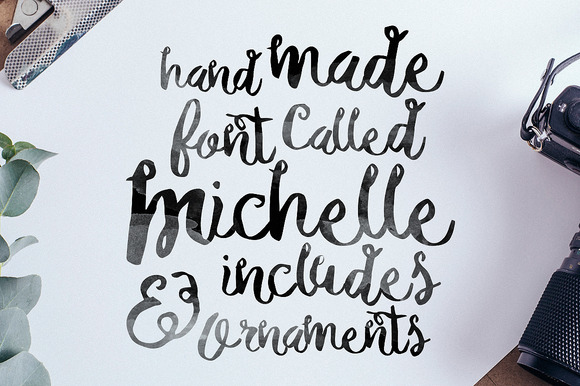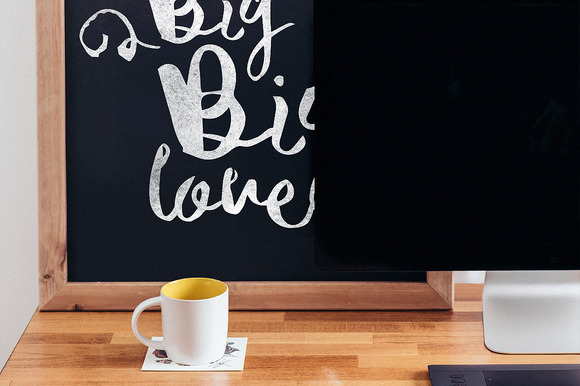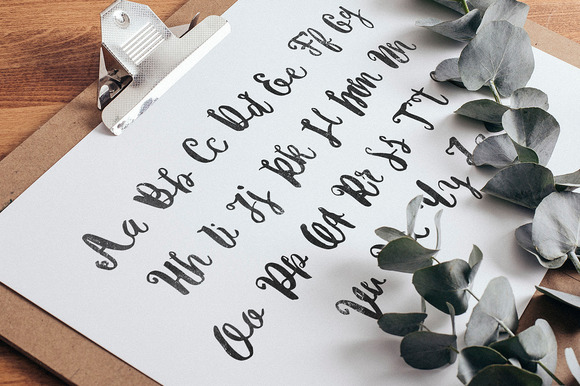
Michelle Font + Bonus by Noe Araujo
Michelle, inspired by the free style hand made font. I made this great font just for you who is looking for something natural, script for your logotype or maybe for a wedding card or some headlines for your website. This great font its just perfect for that!.
Uppercase
Lowercase
Symbols
Numerals & Punctuations
A few special characters
The Features of this fonts is :
Discretionary Ligatures
Stylistic Alternates
Initial and Terminal Forms that setting up in Contextual swashes ( This fonts is automatically setting the initial and terminal forms as default, and if you want to turn off the initial and terminal just click the button of the contextual swashes, it more easier than opening the glyph tab)
Jeumpa Script by Dirtyline Studio
Jeumpa Sript Font
Jeumpa Script is another lovely modern calligraphy typefaces, which is combining the style of classic calligraphy with an modern style. The Features of this fonts is :
Discretionary Ligatures
Stylistic Alternates
Initial and Terminal Forms that setting up in Contextual swashes ( This fonts is automatically setting the initial and terminal forms as default, and if you want to turn off the initial and terminal just click the button of the contextual swashes, it more easier than opening the glyph tab)
Humblle + Bonus by Dirtyline Studio
Introducing Humblle inspired by handwritten letters and some combination of style Rock n Roll. wild hand and imperfect flow give the natural looks.